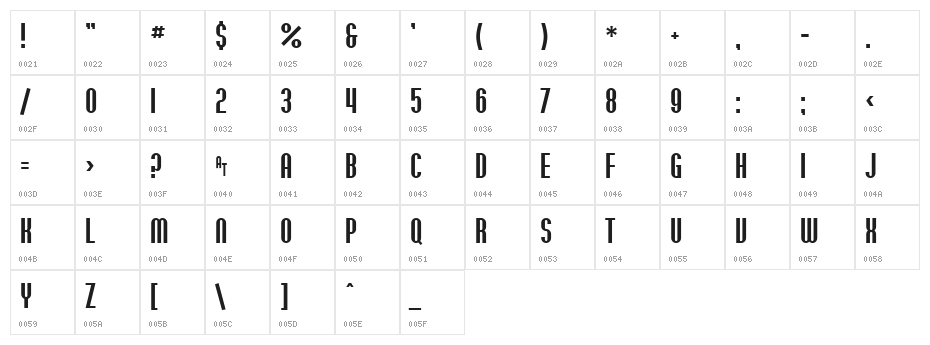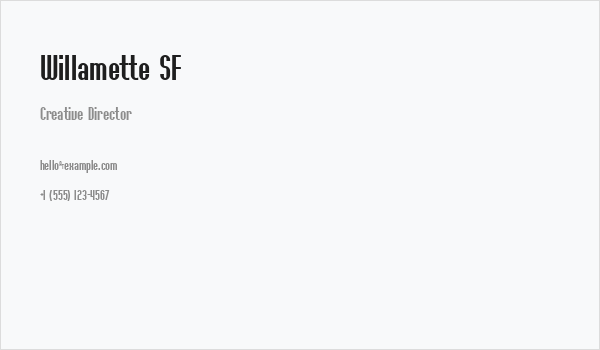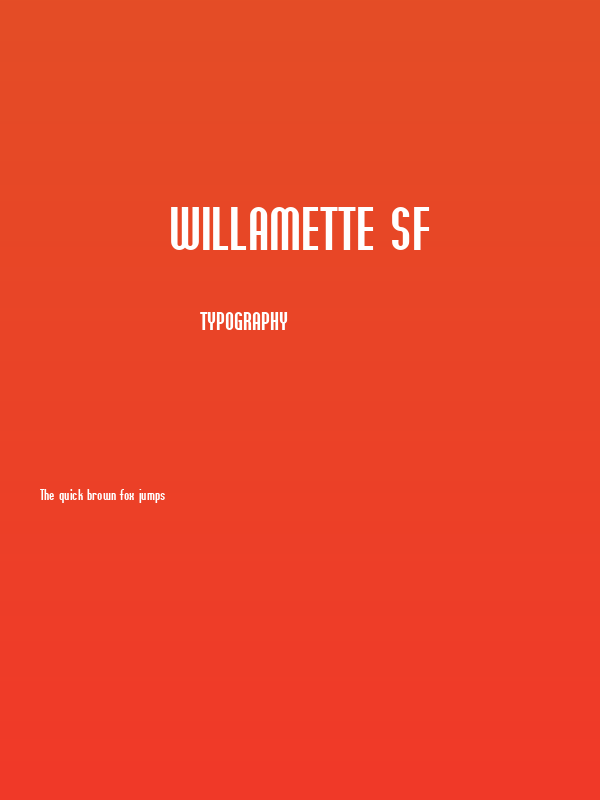
Willamette SF Font
Willamette SF Description
This font features a bold and impactful design with a modern flair. The characters are tall and narrow, giving a condensed appearance that maximizes vertical space. The strokes are consistent in width, providing a uniform look across all characters. The uppercase letters are particularly striking, with a strong presence that commands attention. The lowercase letters maintain the same condensed style, ensuring readability while preserving the overall aesthetic. The numerals are clear and distinct, matching the boldness of the alphabetic characters. Special characters are well-defined, adding versatility to the font's use. This font is ideal for projects that require a strong visual impact, such as posters, headlines, and branding materials.
| Proposed Projects | Ideal for posters, headlines, branding, and any project needing a strong visual impact. |